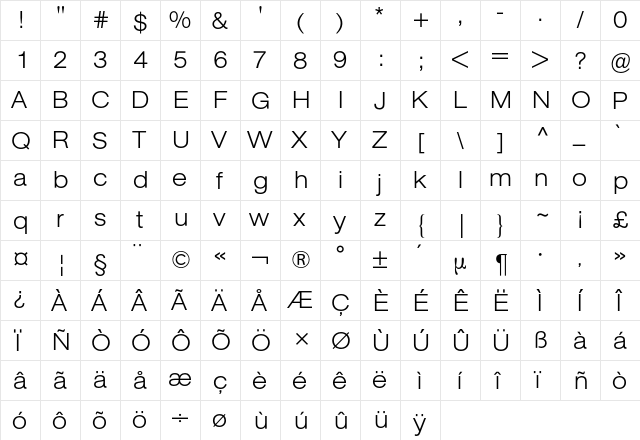
AG Buch Extended BQ Regular Font Preview
AG Buch Extended BQ Regular
AG Buch Extended BQ Regular Font Details
Design Context for AG Buch Extended BQ Typeface
AG Buch Extended BQ takes a measured approach to typography — its balanced proportions and neutral character make it a reliable workhorse for both digital and print work.